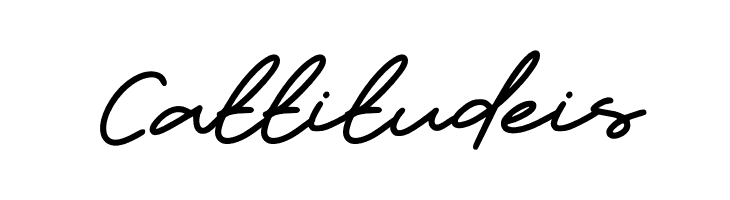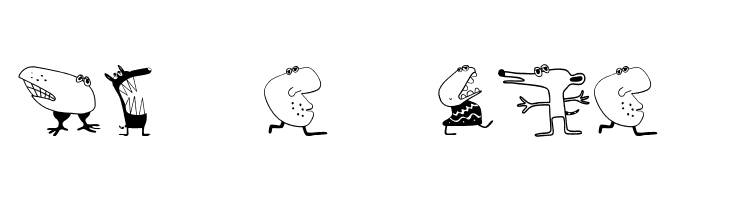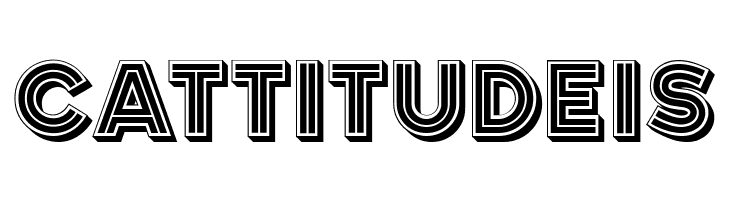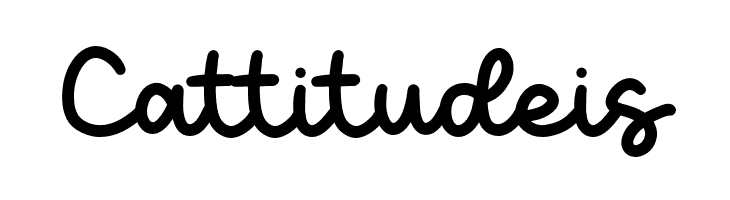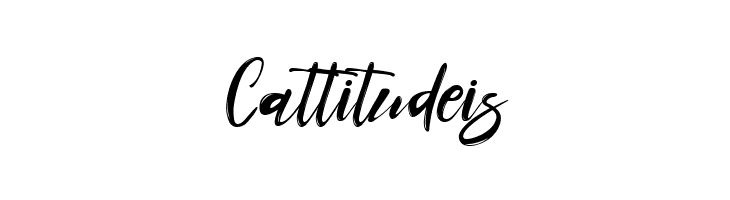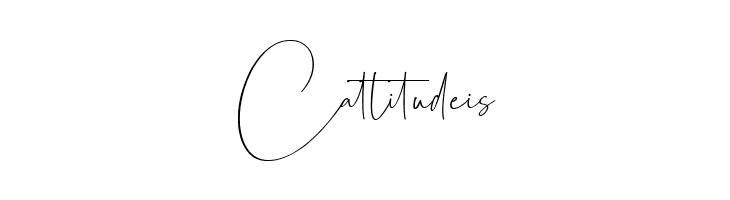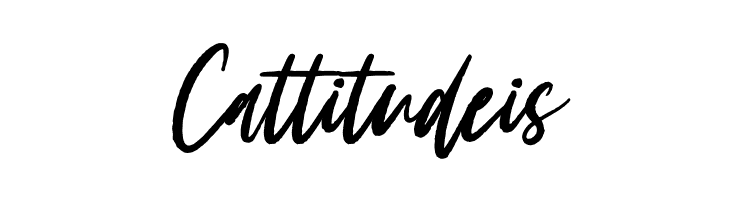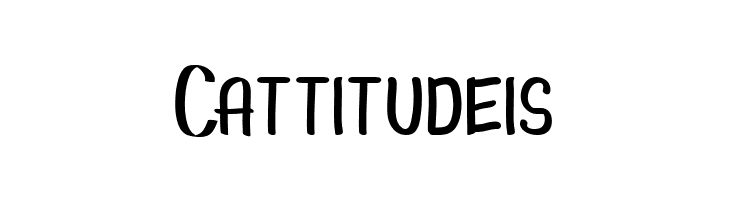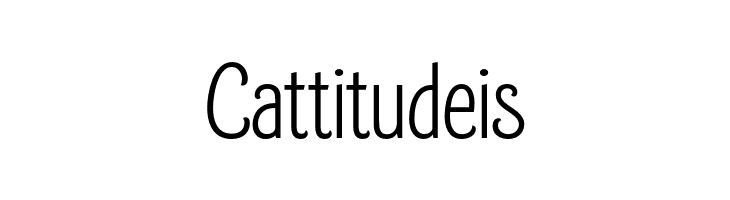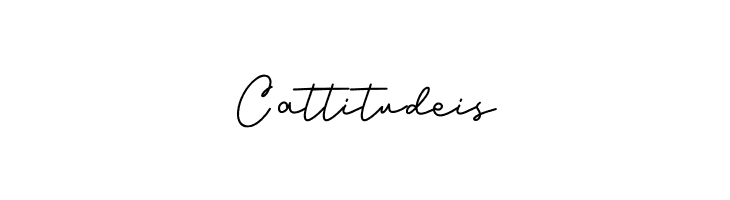
• Canarias
Outlined geometric sans-serif with tall, narrow forms and rounded corners.
• Canaro Light DEMO
A modern, light sans-serif font with a clean and minimalist design.
• Canaro Light Italic DEMO
A sleek, modern, light italic font with elegant slanted characters.
• Canasita
A whimsical, handwritten font with thin, elongated characters and a playful elegance.
• Canavarlar Regular
A whimsical font with each letter depicted as a unique monster character.
• CancellerescA
A classic blackletter font with ornate, angular strokes and a bold, structured appearance.
• Cancontrol
A bold, graffiti-inspired font with angular, sharp edges and a decorative style.
• CandaceDemo
A bold, playful font with a hand-drawn, uniform style.
• Candal
A bold, modern font with strong lines and clear characters.
• Candaleya Personal Use
A bold, expressive handwritten font with fluid strokes and a dynamic style.
• CandelaRegular
A bold, playful script font with interconnected, flowing strokes.
• Candelia Regular
A cursive, handwritten-style font with elegant, flowing characters.
• Candelia Regular
A flowing, cursive script font with elegant, interconnected characters.
• Candelita
A bold, playful font with rounded, bubbly characters ideal for fun and whimsical designs.
• Candenvilla_Demo
An elegant script font with flowing, cursive characters and decorative swashes.
• Candera-Bold
A playful, bold, and rounded font with smooth curves and a whimsical touch.
• Candia Script Font
A fluid and elegant script font with a calligraphic style.
• Candice Slanted
A slanted, cursive font with medium contrast and elegant, flowing strokes.
• Candid Style
A playful, bold font with rounded, decorative letterforms.
• Candy Bold
A bold, decorative font with playful, high-contrast letterforms.